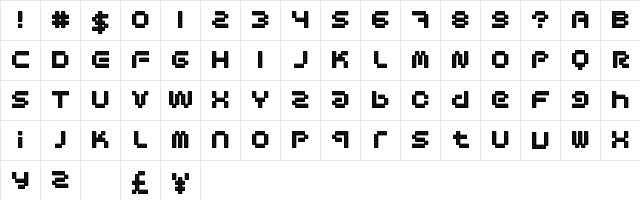
DesignerPixels Regular
Design Context for DesignerPixels Typeface
DesignerPixels celebrates the constraints of early digital type, turning pixel geometry into a distinctive and immediately recognisable style.
Well-suited to indie game interfaces, retro computing aesthetics, and pixel art-adjacent design work.
Pro Tip: Use DesignerPixels at sizes that align with its pixel grid for the sharpest rendering — scaling to non-integer multiples can introduce unwanted blur.